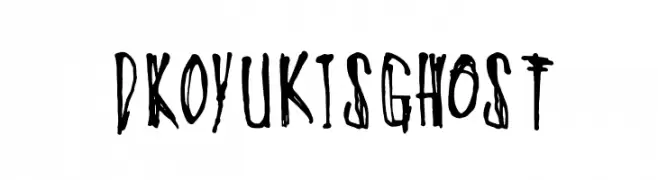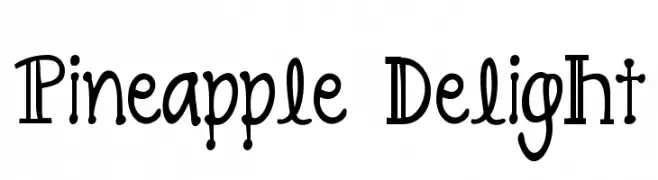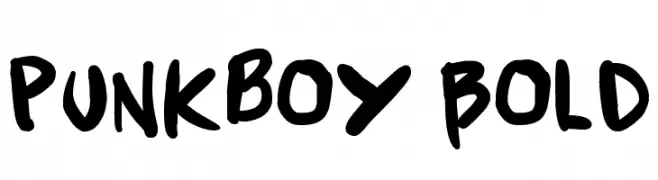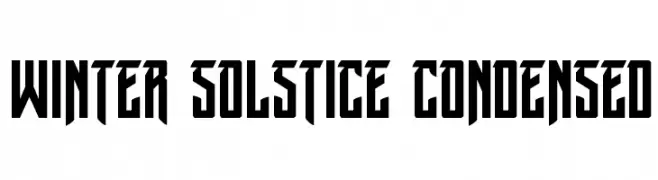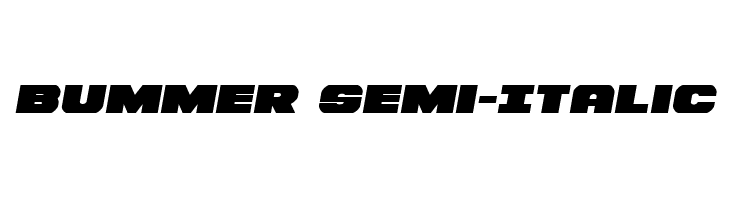
A hand-drawn, energetic font with tall, narrow characters and irregular strokes.
A playful and whimsical font with rounded terminals and a hand-drawn feel.
A classic serif font with medium contrast and elegant, traditional features.
A bold, hand-drawn font with a rebellious and energetic style.
A bold, italicized font with sharp angles and a futuristic design.
A bold, geometric font with sharp edges and a modern aesthetic.
A bold, condensed font with sharp, angular edges and a modern, geometric style.